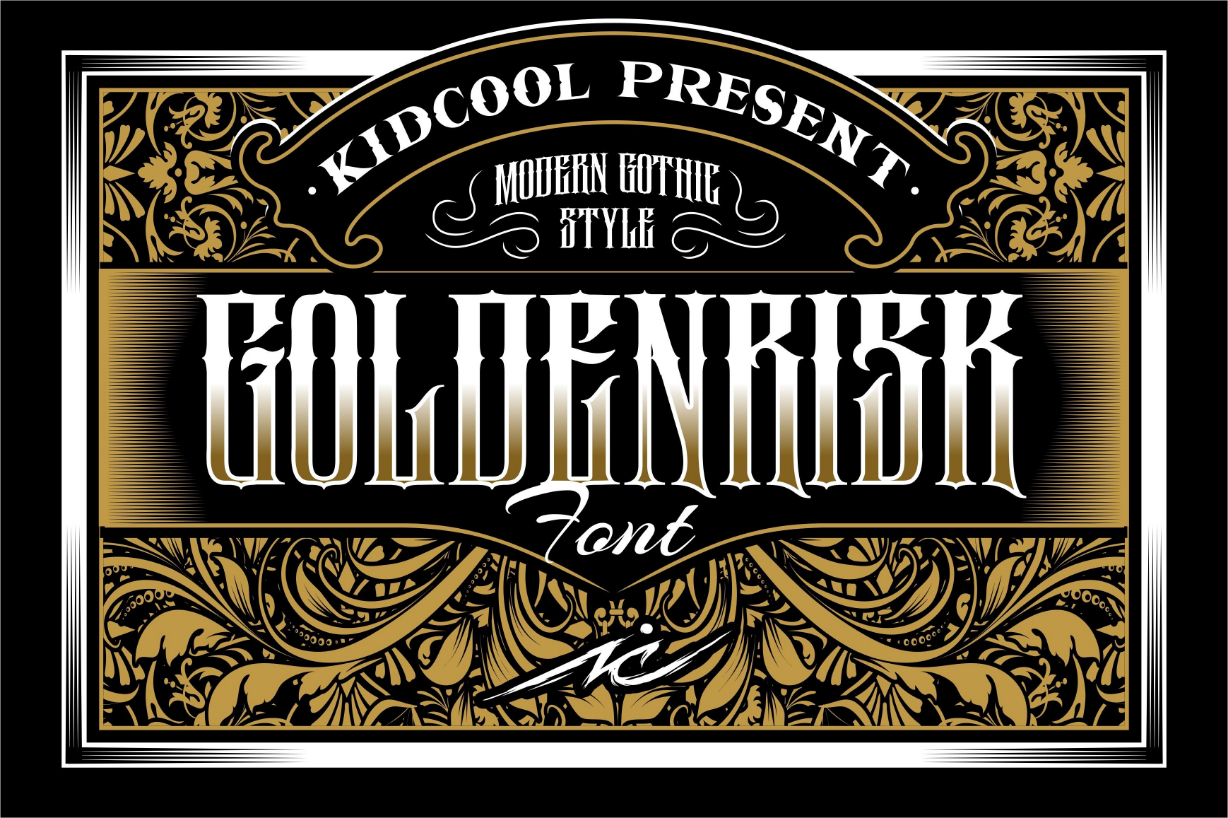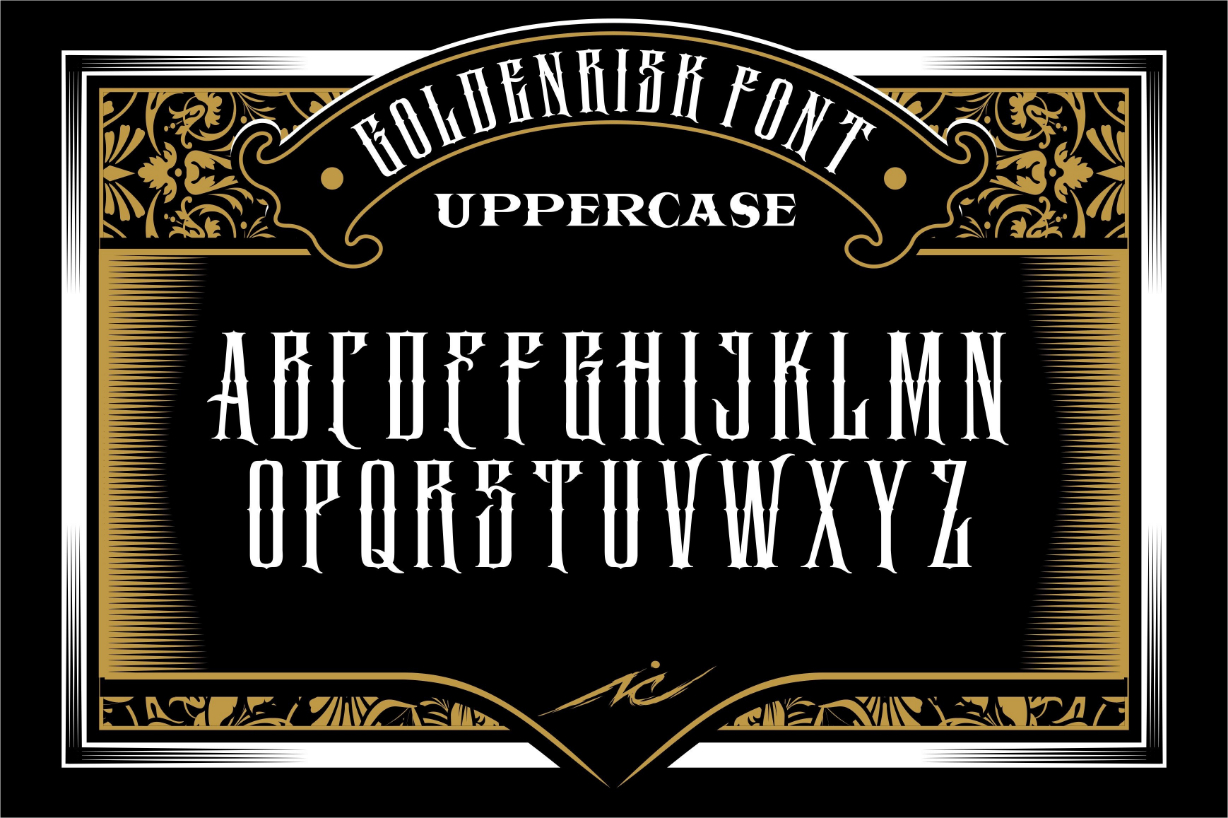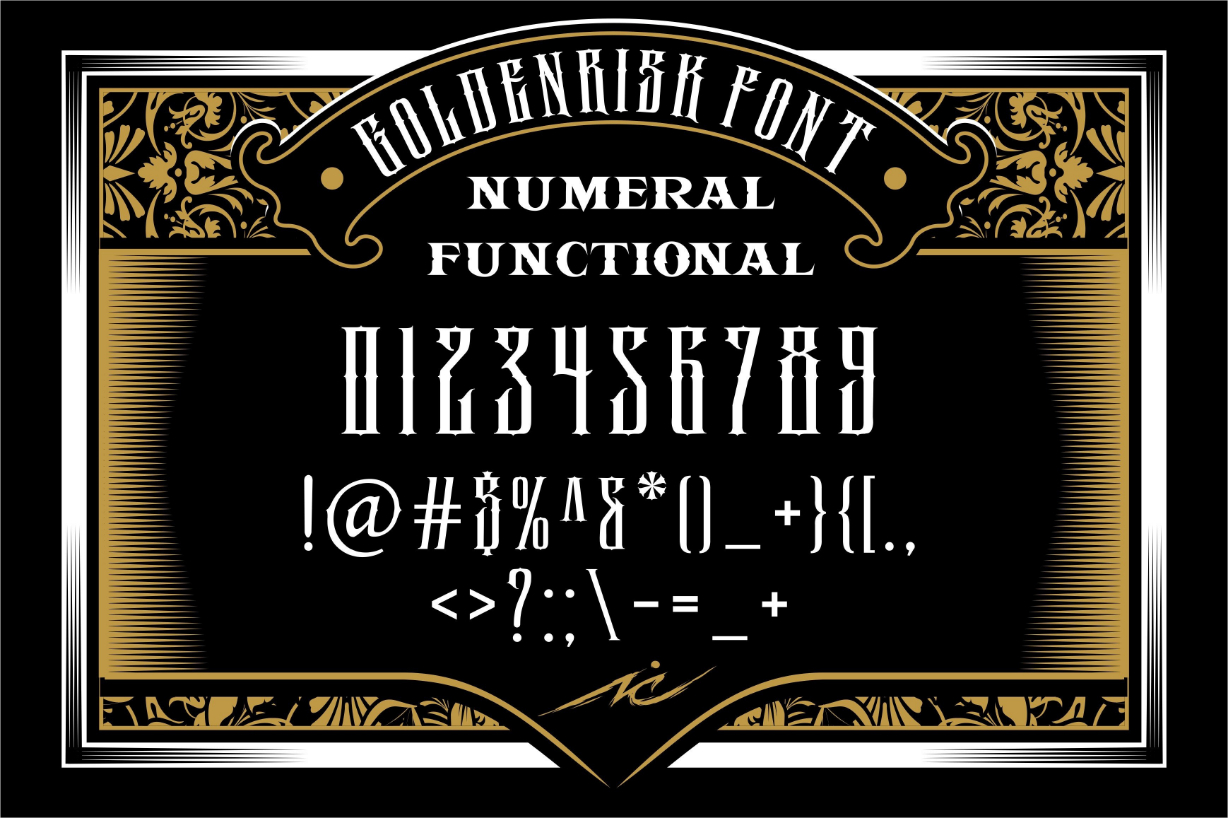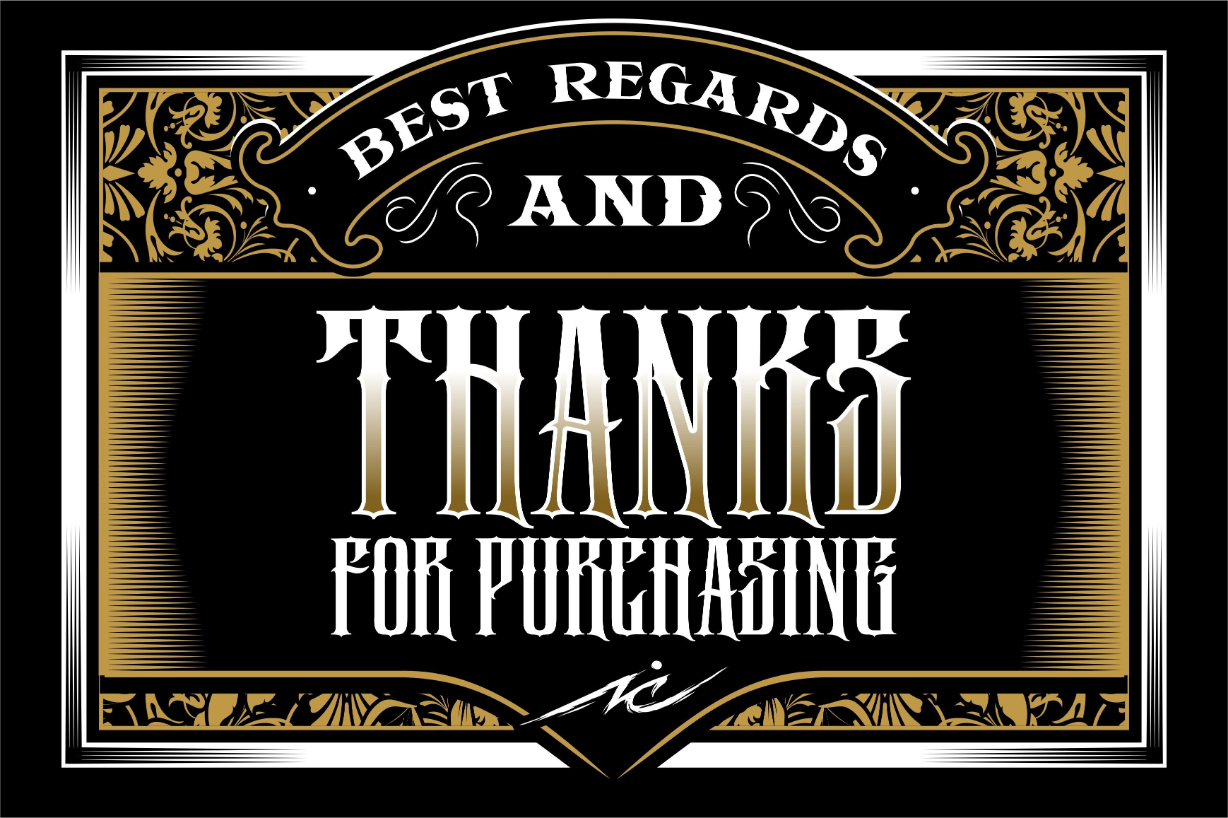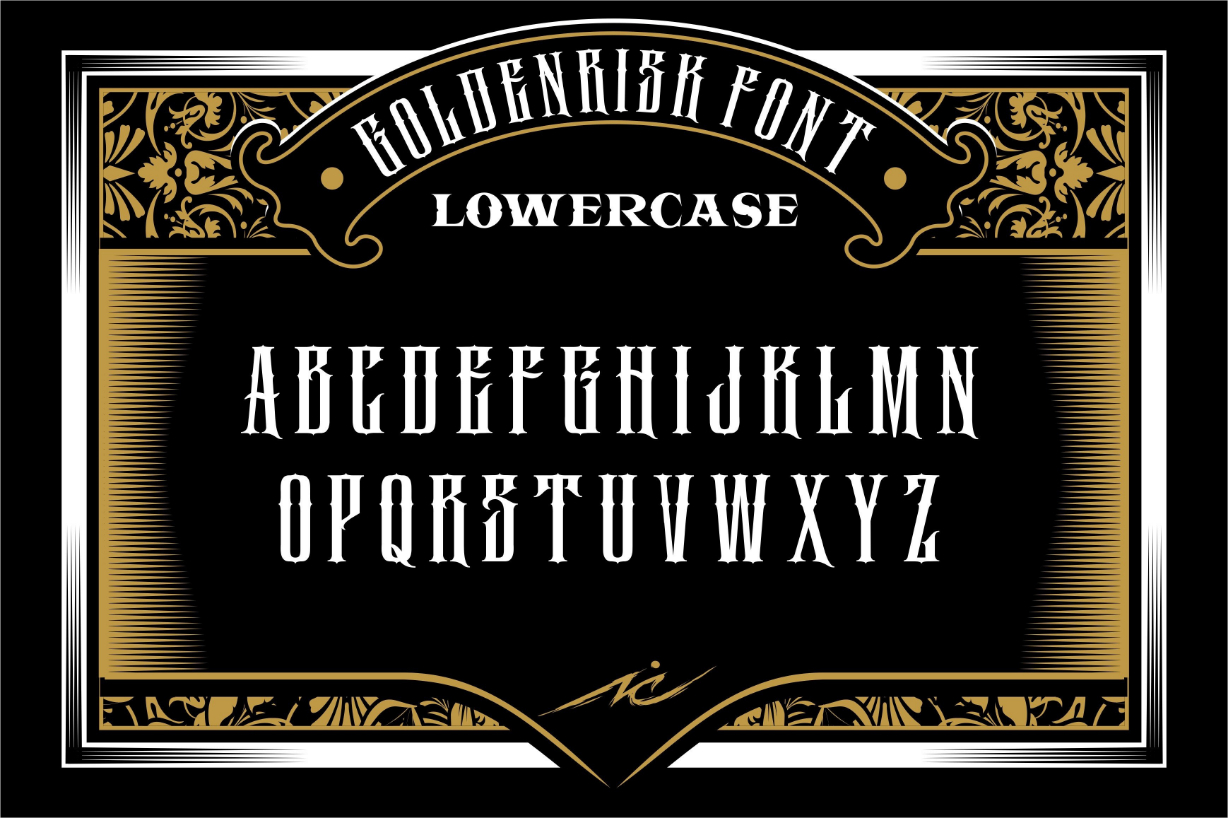
Goldenrisk Font
About Goldenrisk Font
GOLDENRISK is a blackletter font with a modern gothic style, it is very suitable to explore the creativity of your work in the fields of logos, bands, posters, etc.